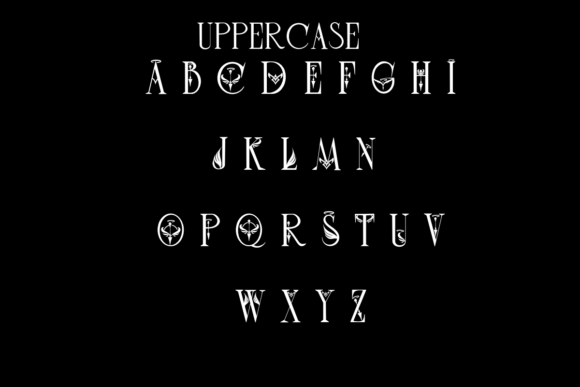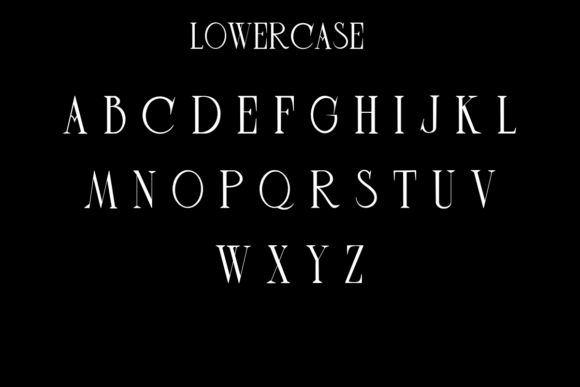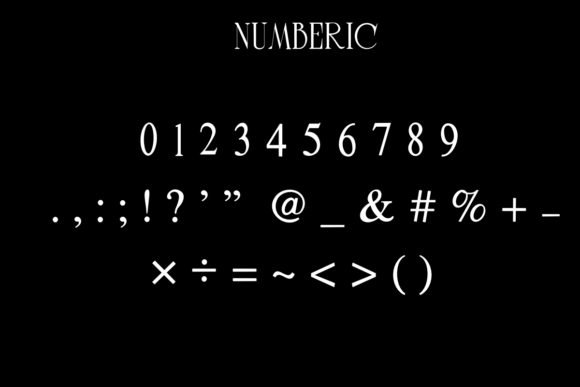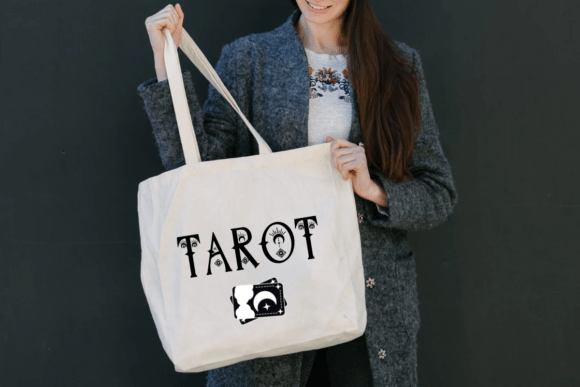
Introduction to Angel Cards Font
Step into a world of mystique and elegance with Angel Cards , a divine decorative font inspired by celestial themes and tarot card artistry.
Each letter is beautifully adorned with symbolic elements like halos, wings, and starsโperfect for fantasy book covers, spiritual branding, mystical posters, or gothic invitations This typeface blends vintage elegance with magical symbolism, making your designs feel both sacred and striking.